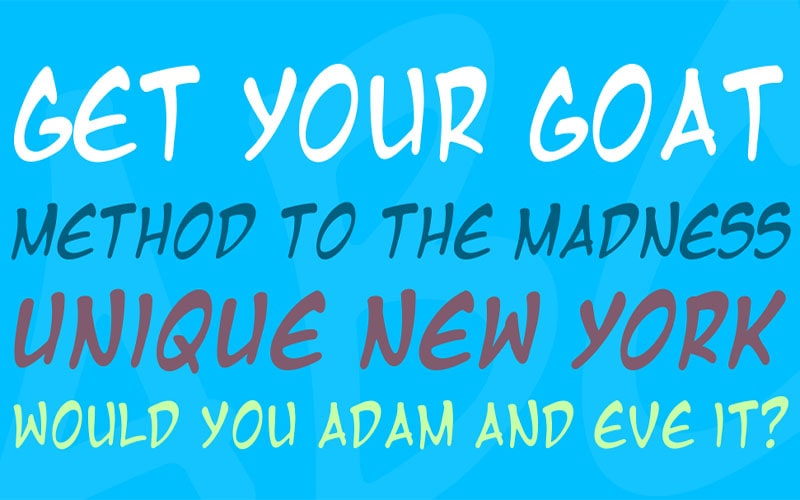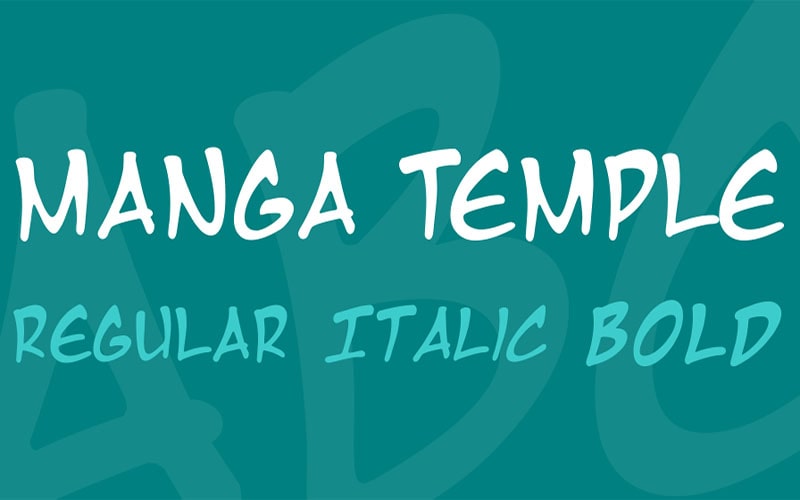
Manga Temple Font is a Fancy, Comic, Typeface inspired by the vibrant and expressive style of manga comics. It was designed by Blambot, a well-known foundry specializing in comic book lettering and typefaces.
Blambot, founded by Nate Piekos, creates fonts specifically for the comic book industry, ensuring that each typeface enhances comic art’s storytelling and visual impact.
This font captures the dynamic and playful essence of manga art, making it an excellent choice for projects that seek to convey excitement, action, and a sense of fun.
It typically contains a single, highly stylized font style. It features bold, thick lines and an animated, energetic appearance that reflects manga illustrations’ dramatic and passionate nature.
Manga Temple Font
| Font Name: | Manga Temple Font |
| Style: | Fancy, Comic, Typeface |
| Font Designer: | Blambot |
Manga Temple Font primarily supports languages that use the Latin script. This makes it suitable for English and other Latin-based languages, allowing for versatile use in different linguistic contexts.
Created by a designer with deep expertise in comic book typography, Manga Temple Font is tailored to enhance the visual storytelling of comics and graphic novels.